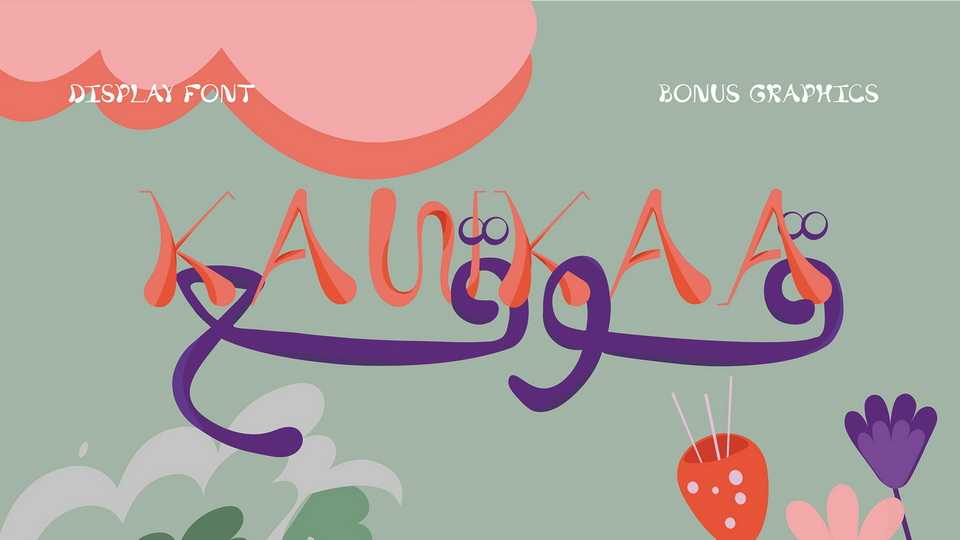
Download Kawkaa font, a Latin typeface and Arabic catch phrase inspired from a monument from Islamic Cairo. Kawkaa can be used in different projects and briefs.